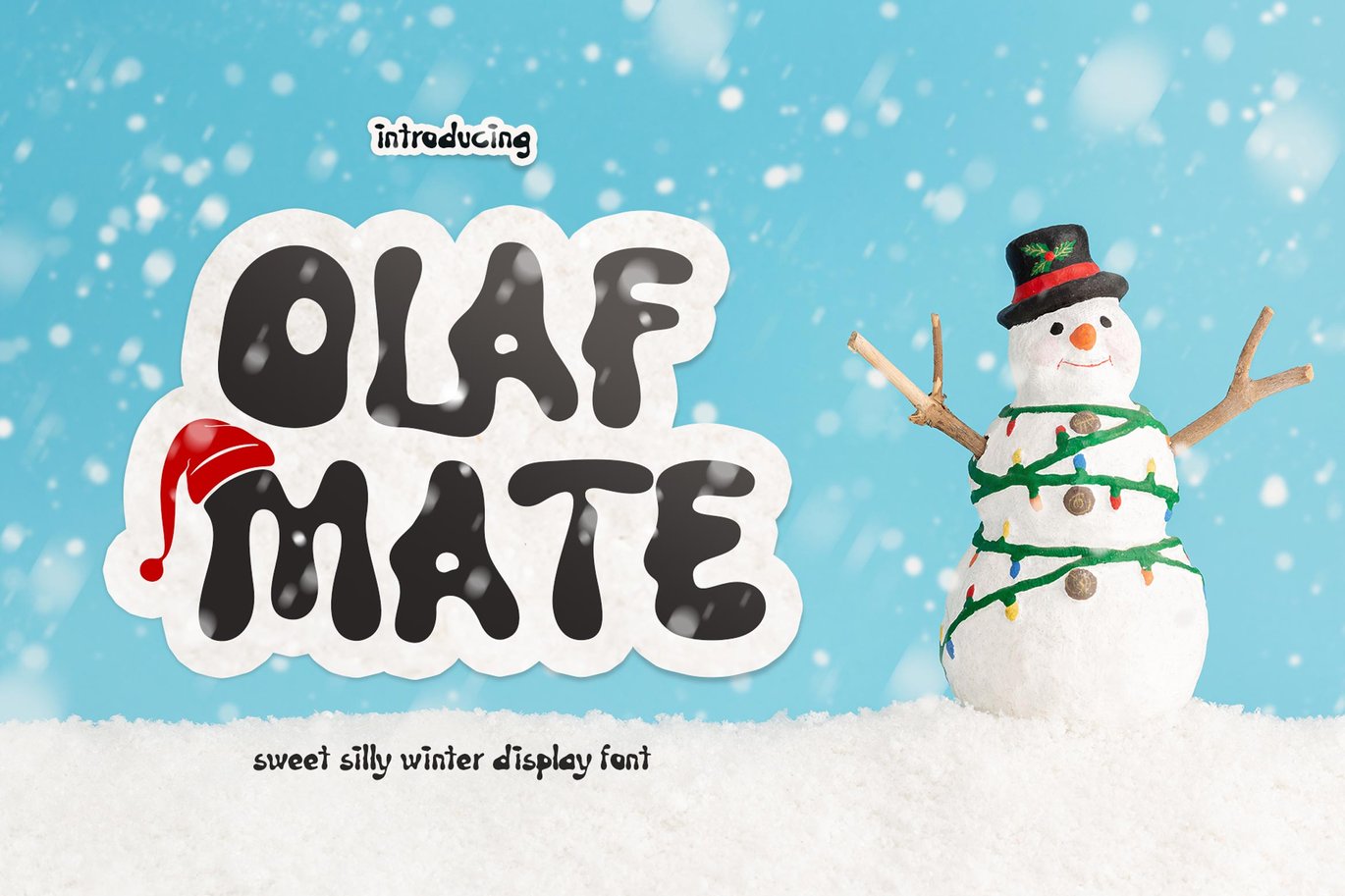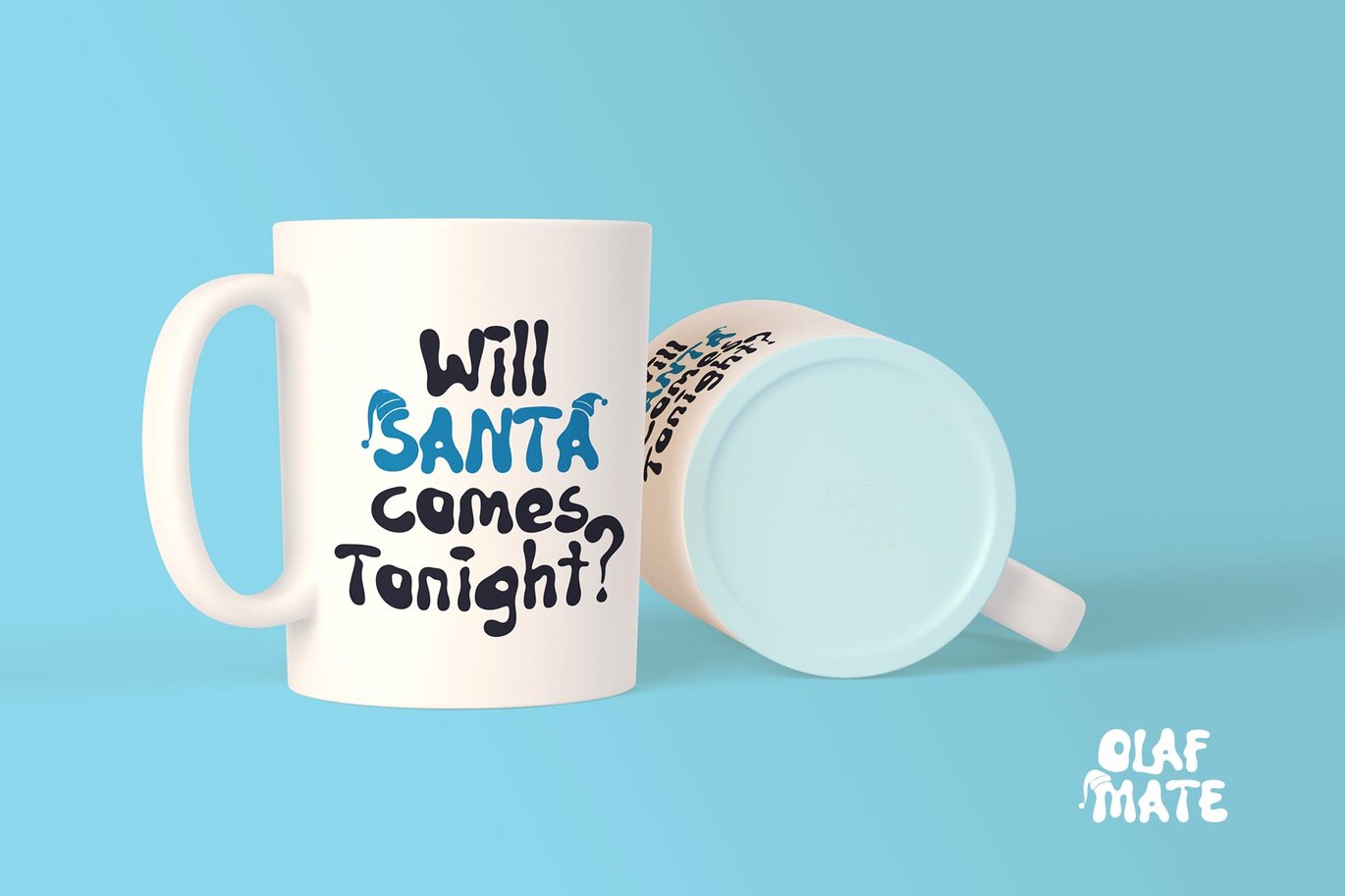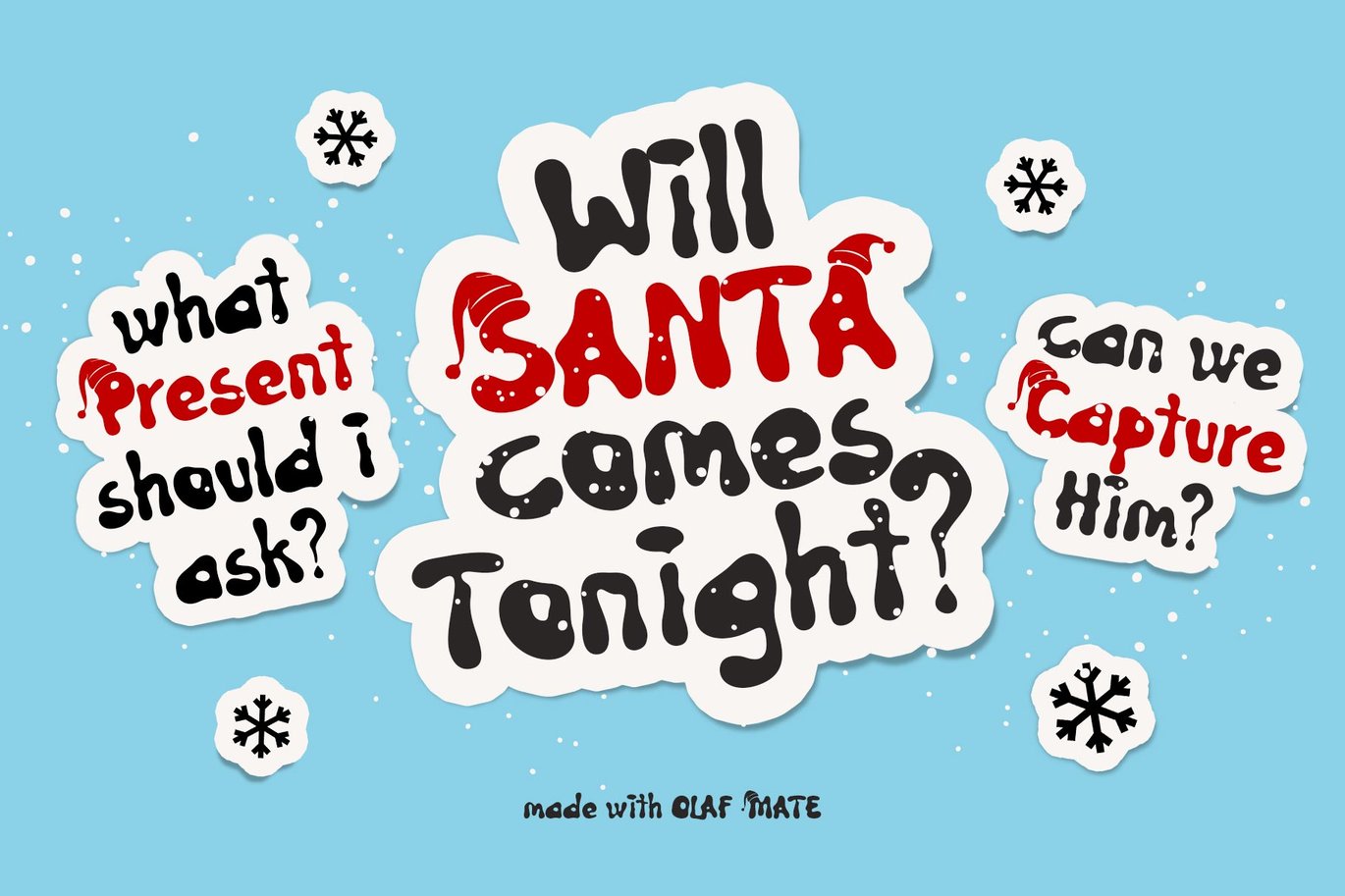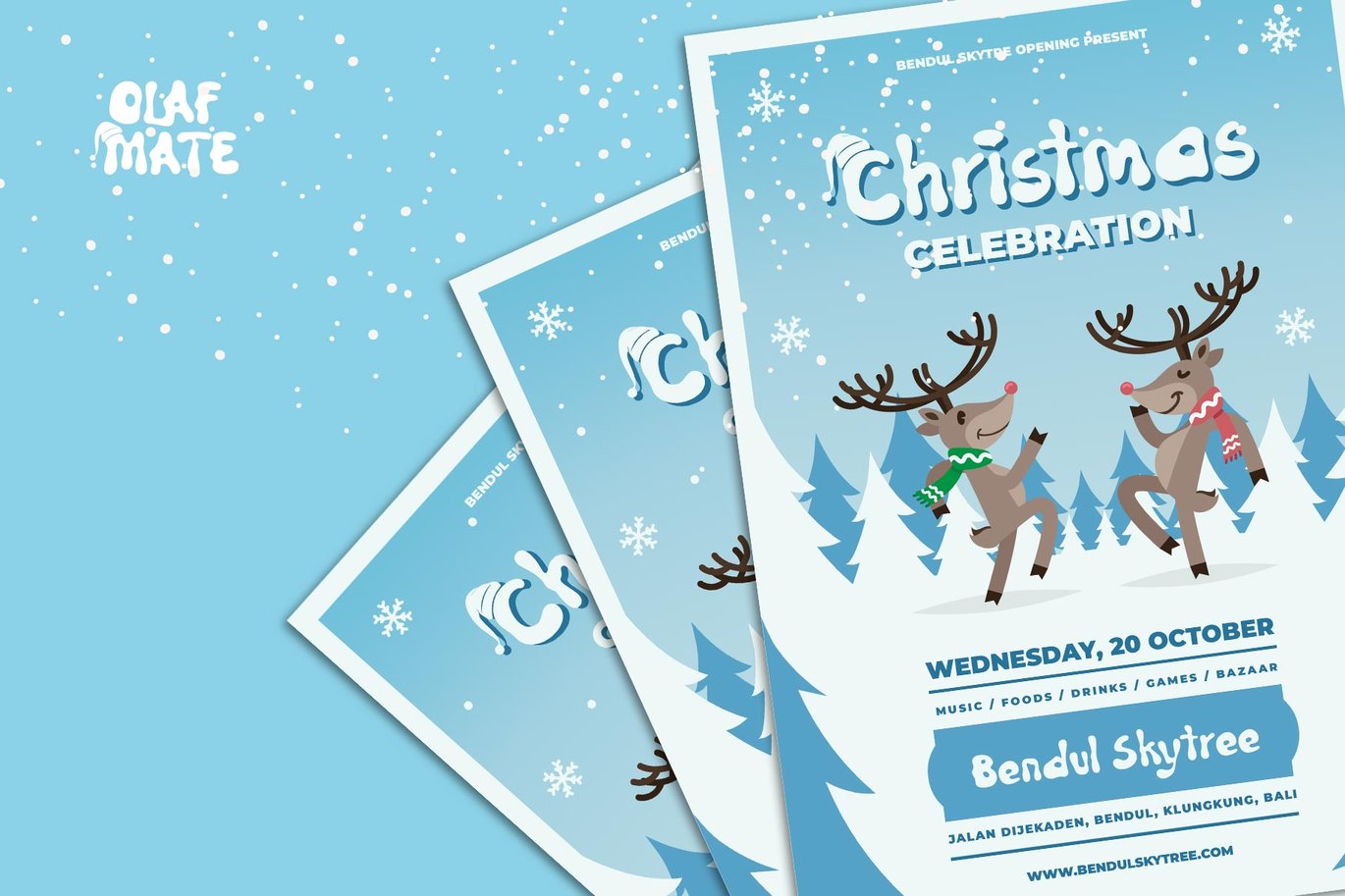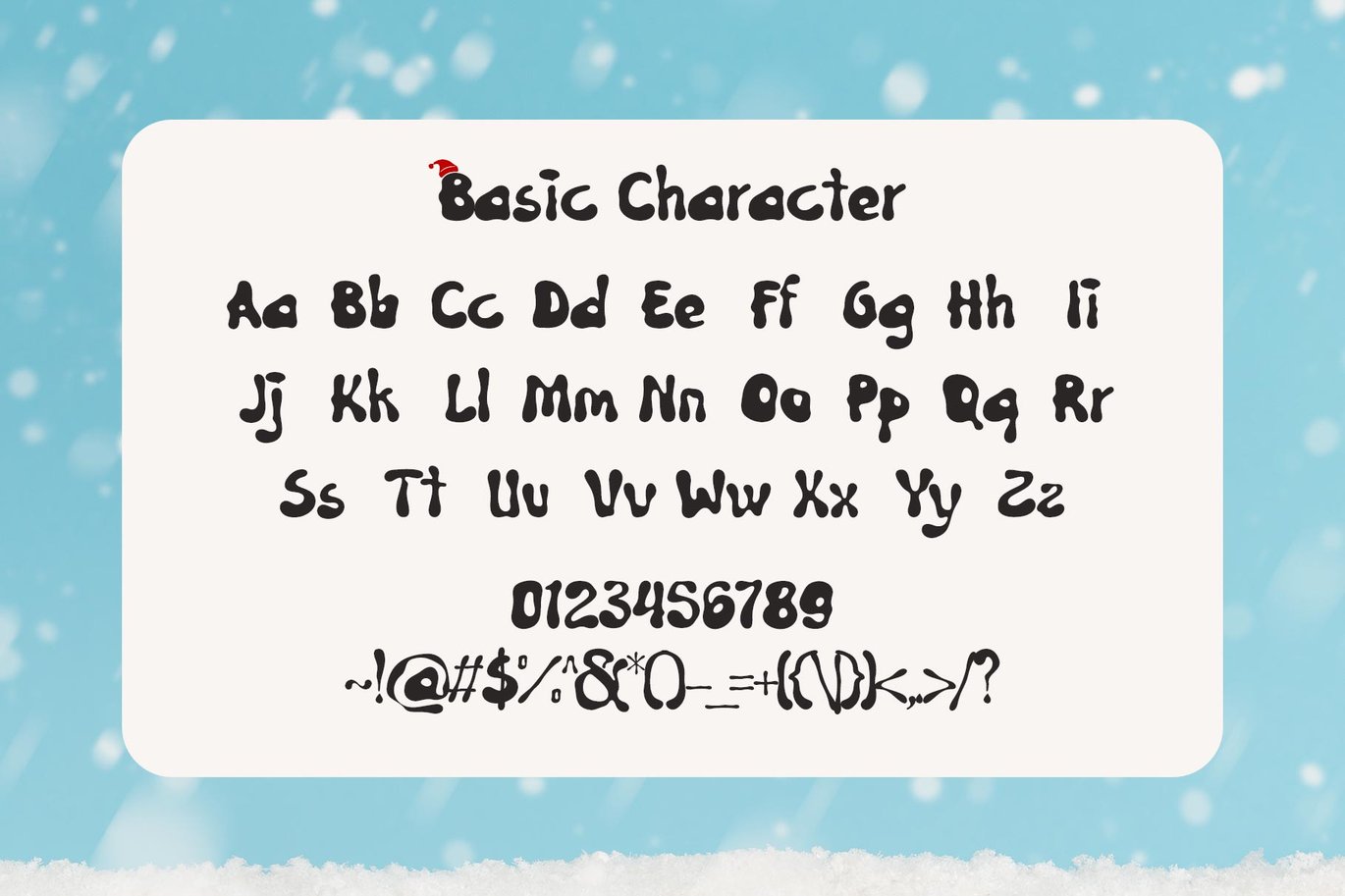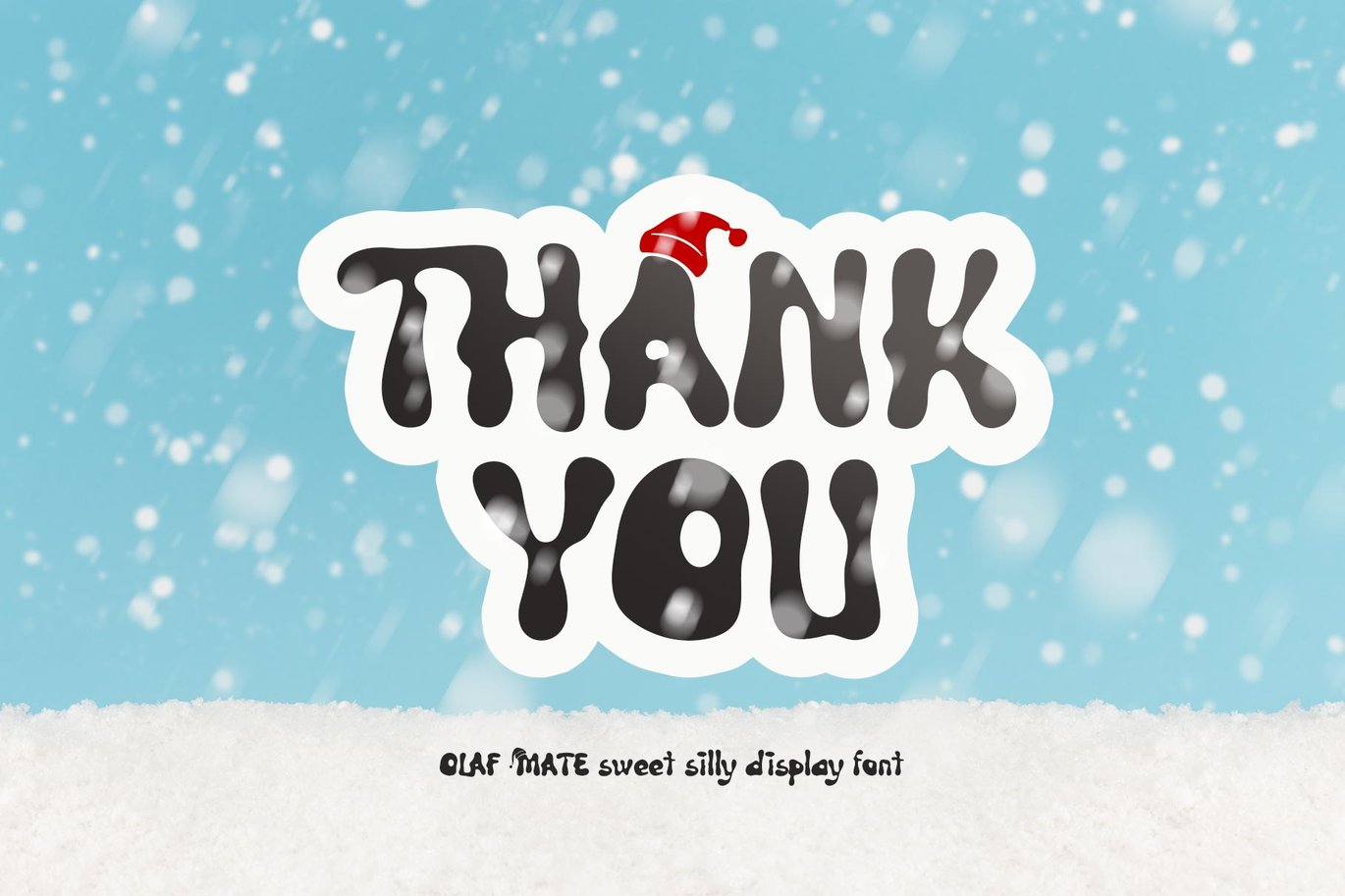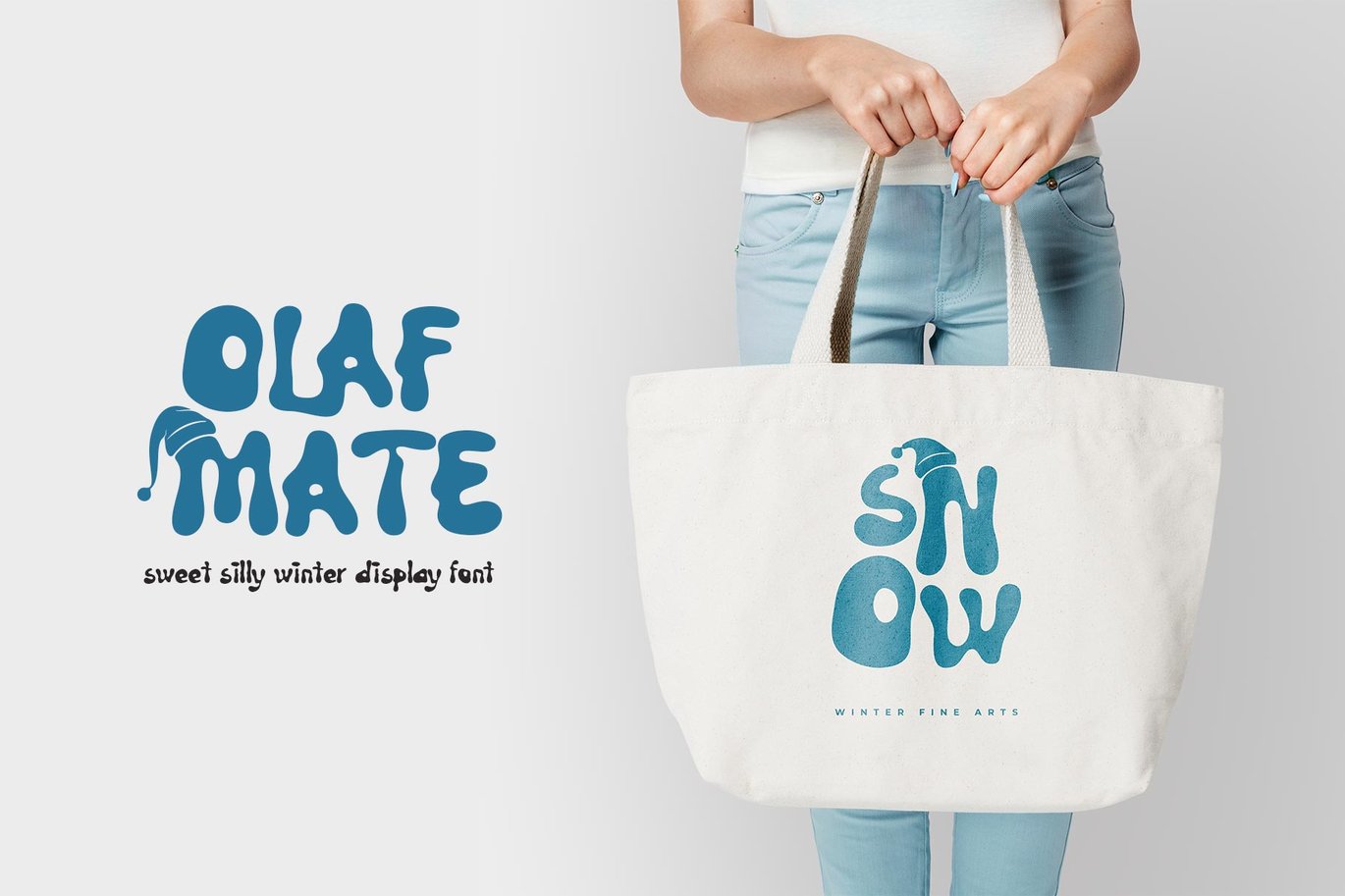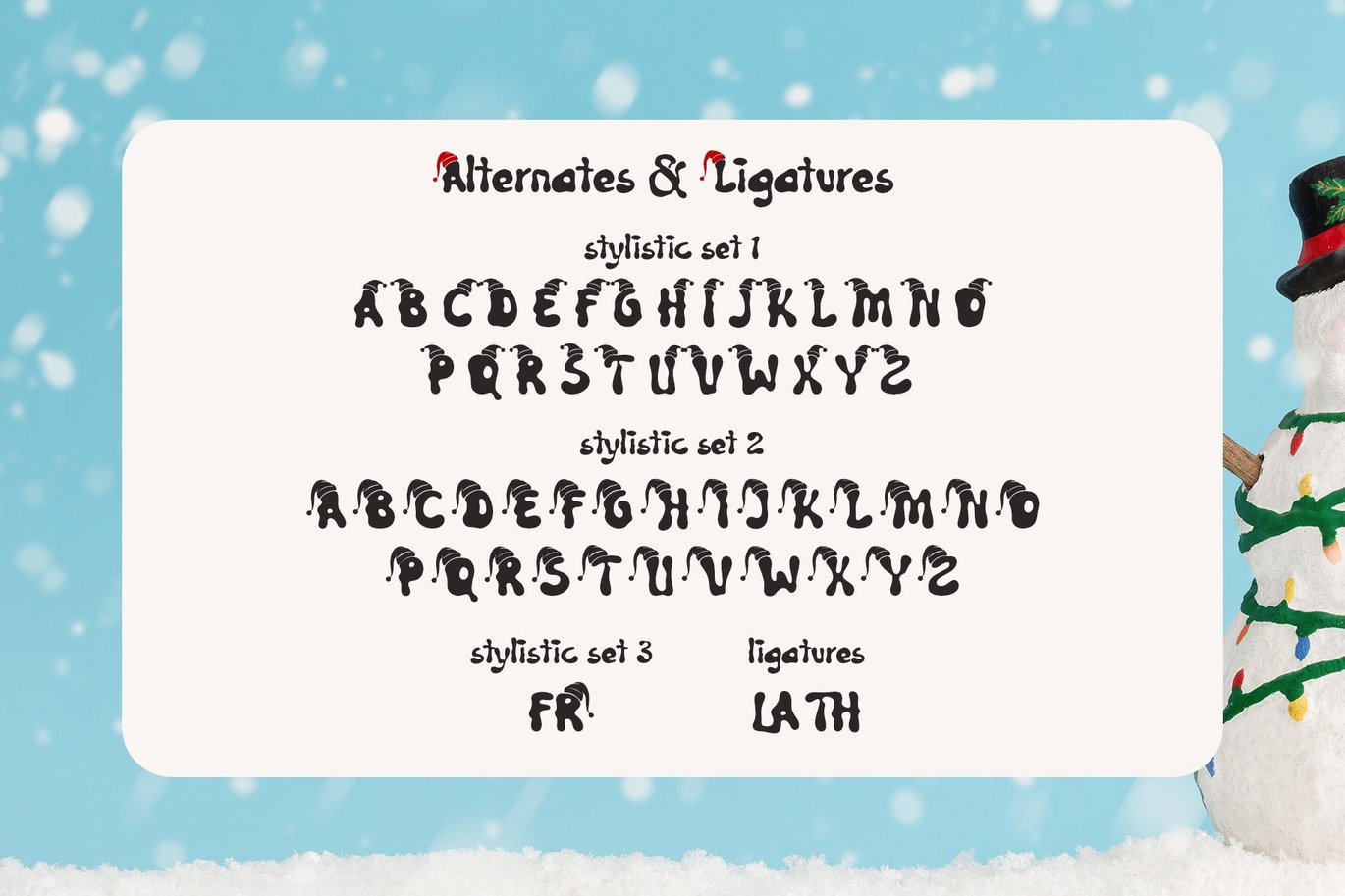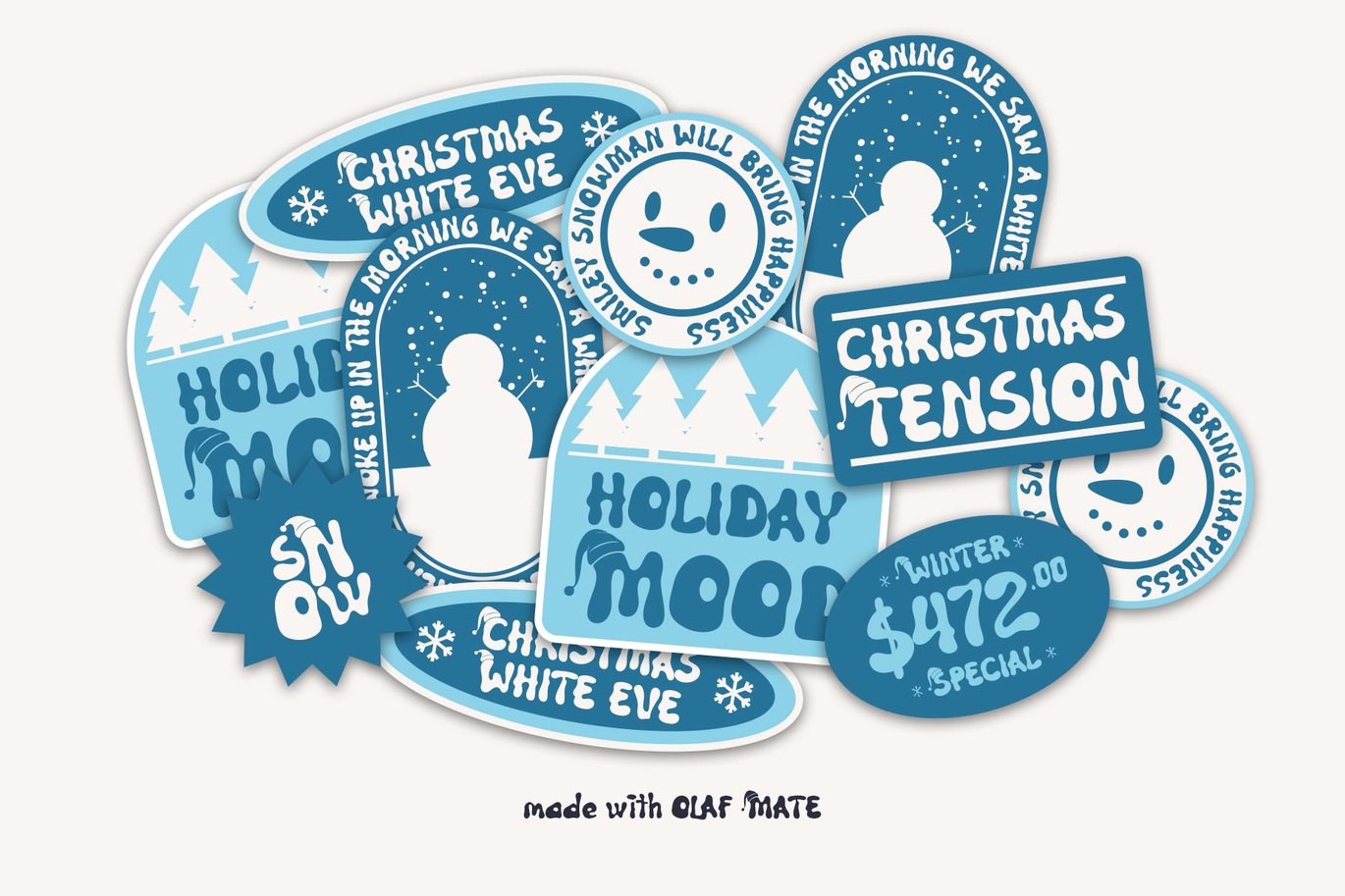
Olaf Mate Typeface
❄️Introducing Olaf Mate Typeface❄️
☃️ Olaf Mate typeface was created from the concept of the end of the year which has many events such as Christmas, New Year and winter. The Olaf Mate typeface is inspired by the shape of the snow starting to melt and is decorated with a santa hat for an alternative font character that makes the impression in December even stronger.
Can be used for the design of poster, Big sale sign, greeting card , packaging designs, New Year design and so on with the winter season concept.
- A-Z Character Set
- Numerals & Punctuations (OpenType Standard)
- Stylistic Alternates